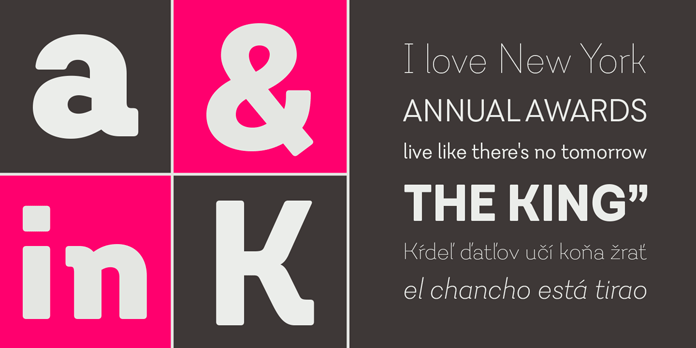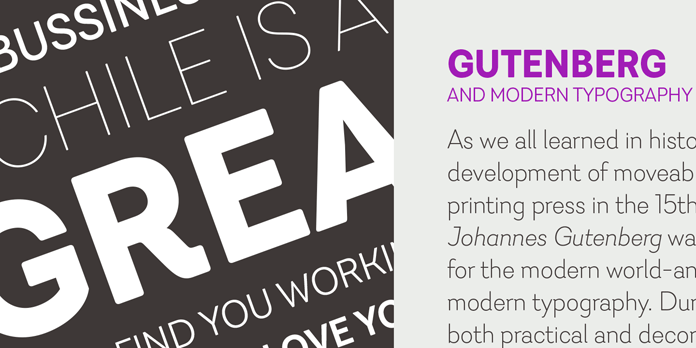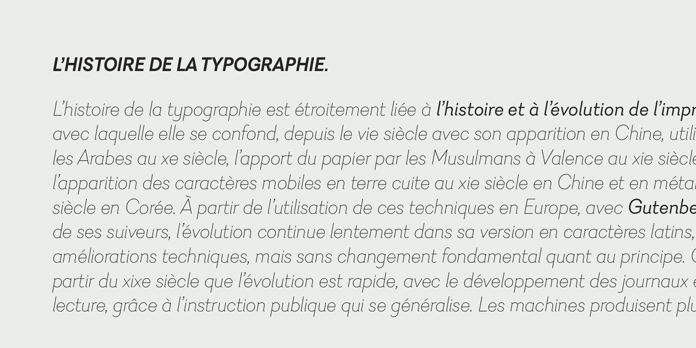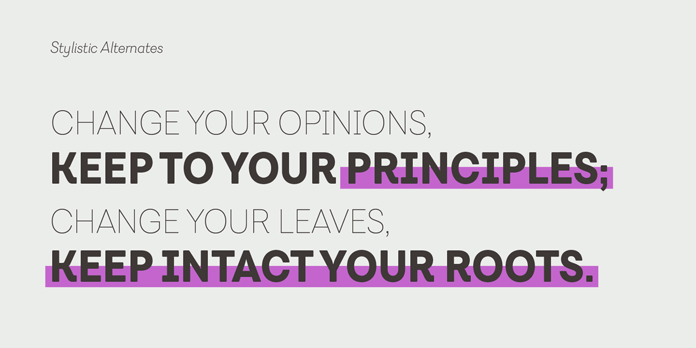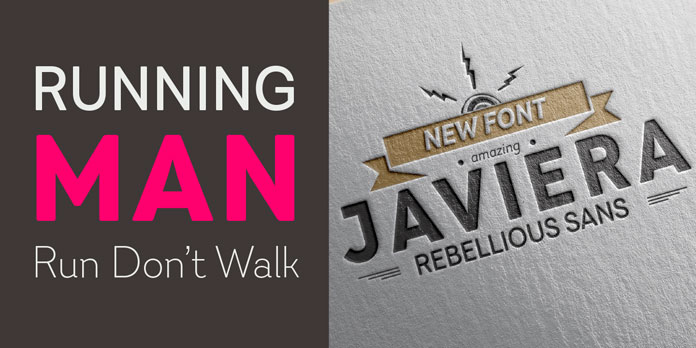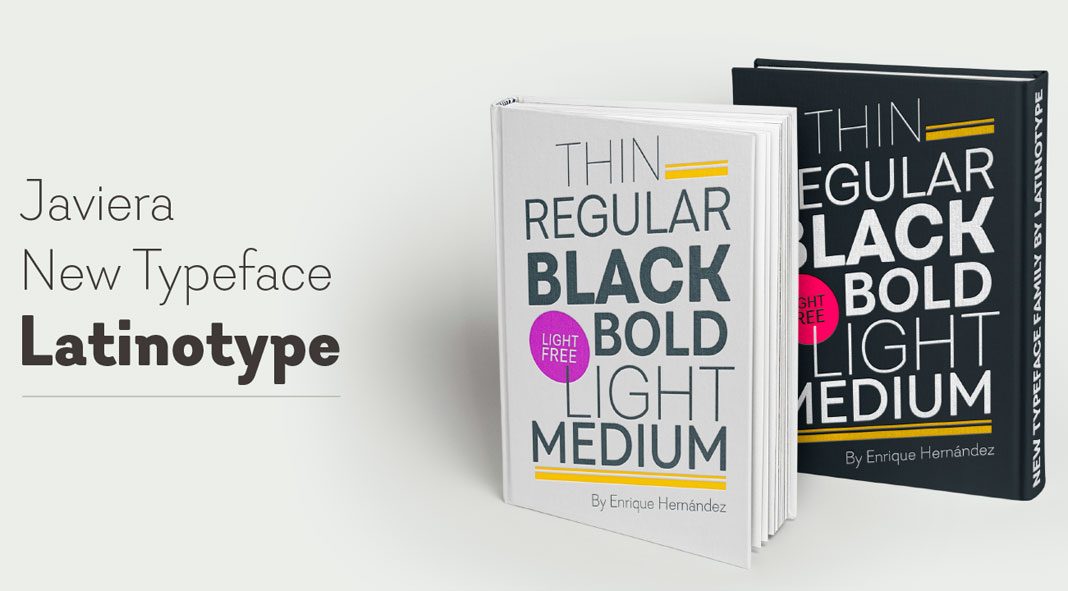
Published in 2017 by type foundry Latinotype, Javiera is a geometric sans serif that comes in 12 styles.
Here comes another representative of a geometric sans serif typeface with humanist attributes. The Javiera font family has been designed by Enrique Hernandez in 2016/2017 with the attempt to create a versatile and friendly typeface that can be used for diverse branding and publishing projects. Please read more about its features below or click on the following link to purchase the family on Fontspring.
Javiera’s characteristic features.
The Javiera font family is mainly characterized by a small x-height, which gives ascenders and descenders a longer look. The curved terminals make it an even more friendly and smooth typeface. By enabling alternate letters, users are able to give their writings a more versatile look and feel. The family includes 6 weights ranging from thin to black plus matching Italics. The character set includes 400 glyphs to support more than 200 languages. For additional information, feel free to follow the link below.